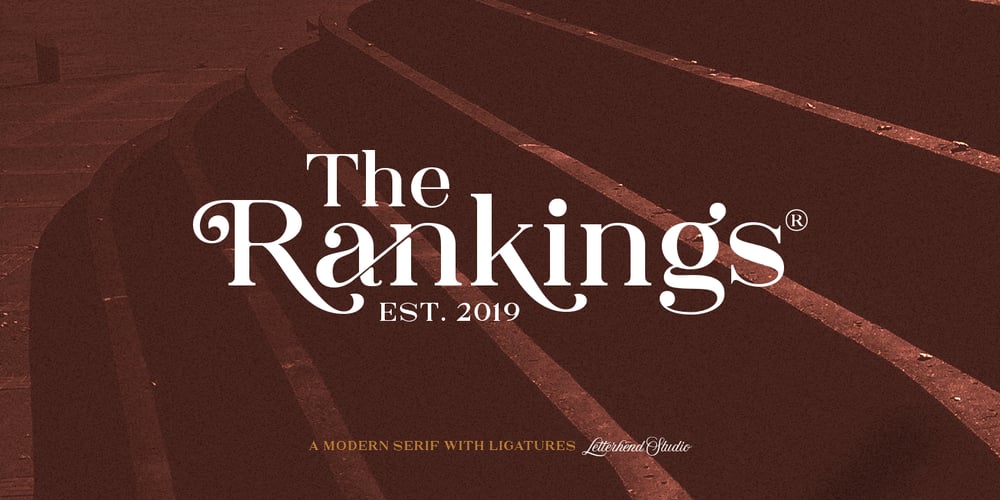
Rangkings
Rangkings font
Rangkings Font Family was designed by Hendry Juanda and published by Letterhend. Rangkings contains 1 styles and family package options. Rankings is a luxury serif with unique alternates and swashes. This display typeface has a classic style yet still looks great for modern design. Rankings is great for headlines, logotypes, apparel, invitations, branding, packaging, advertising, and more. Rankings features : uppercase & lowercase numbers and punctuation multilingual ligatures alternates swashes PUA encoded We hope you enjoy the font, please feel free to comment if you have any thoughts or feedback. Or simply send me a PM or email me at letterhend@gmail.com